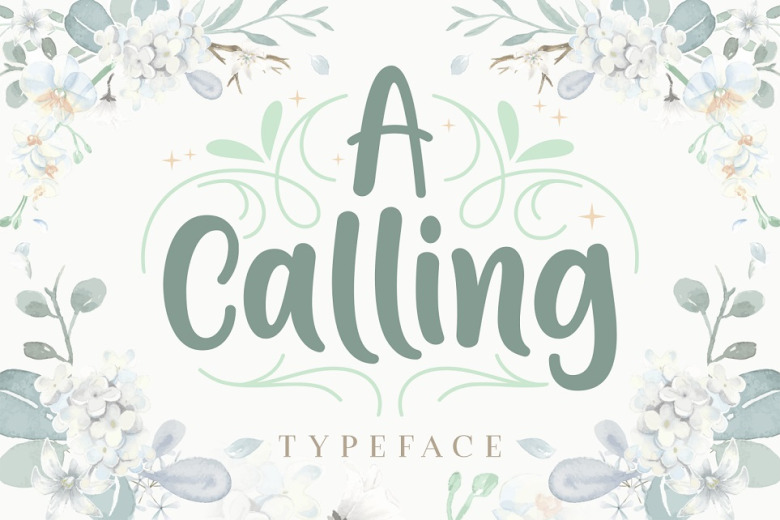
A Calling Font
A Calling is a beautiful script font. Its letters have a striking, yet elegant style which makes it perfect for a wide variety of designs. It has a great readability and will add a playful feel to every design.
A Calling Handwritten Font